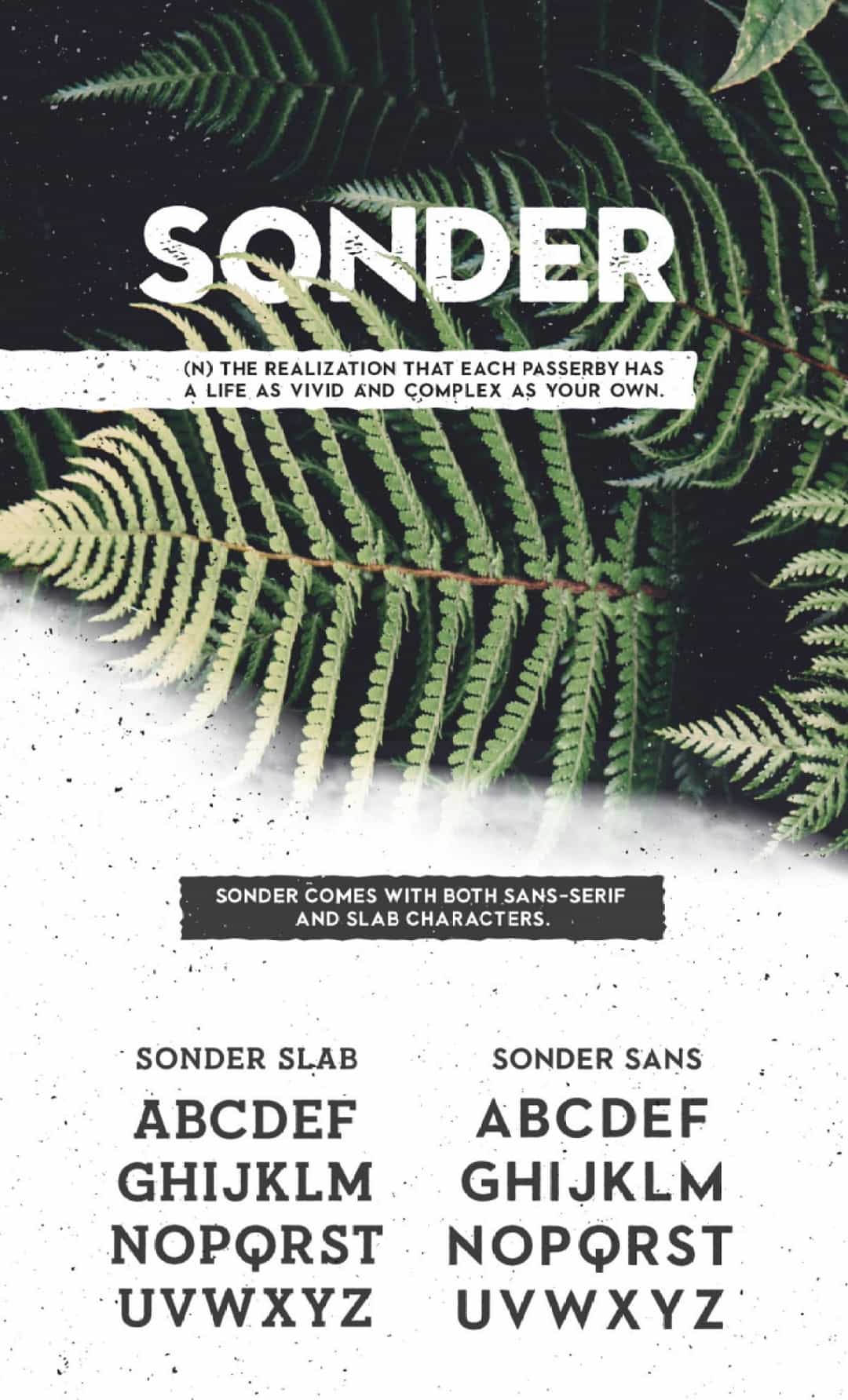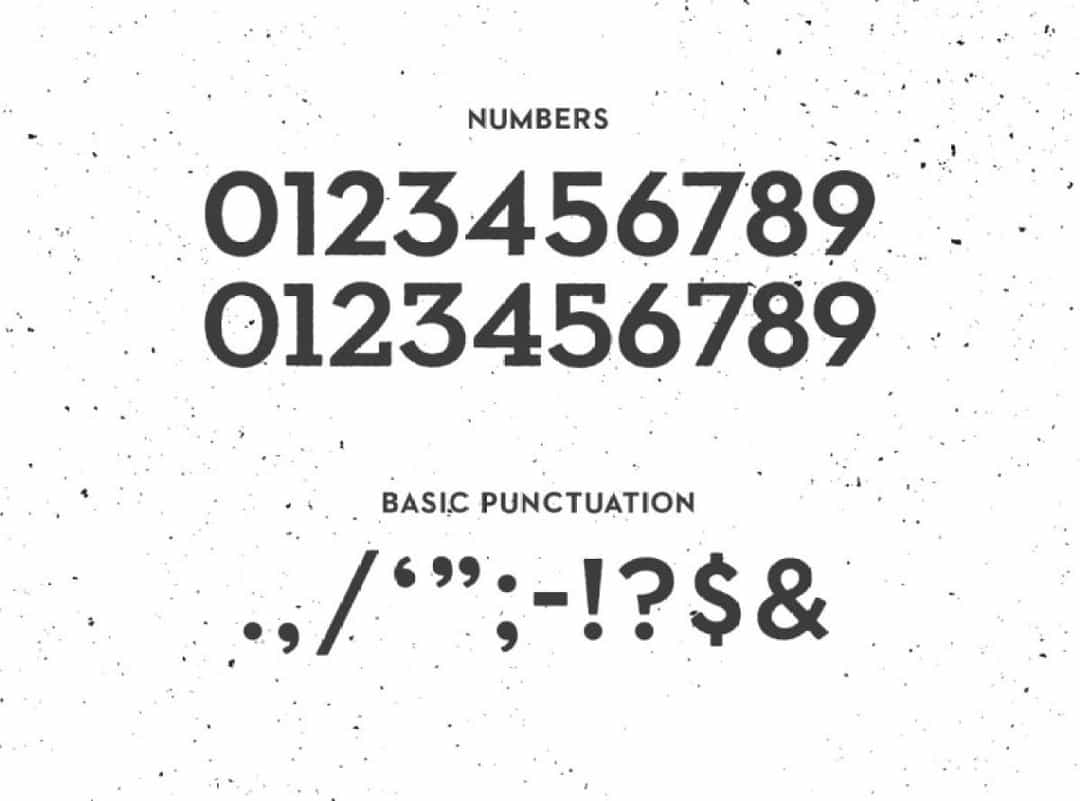
Discover Sonder Font, part of the Sans Serif Slab Serif collection—a versatile and unique font perfect for adding a personal touch to your projects. Download it for free and enjoy crafting designs with style, from invitations to social media posts. This font is available exclusively for personal use, giving you the freedom to create without limits. Unlock your creativity with Sonder Font today!
Members of the Sonder’s type family include Sonder sans and Sonder slab. Ten out of all the Commercial Use Typeface are the fonts which alongside the others are grouped; Bold Rough is one of these fonts.